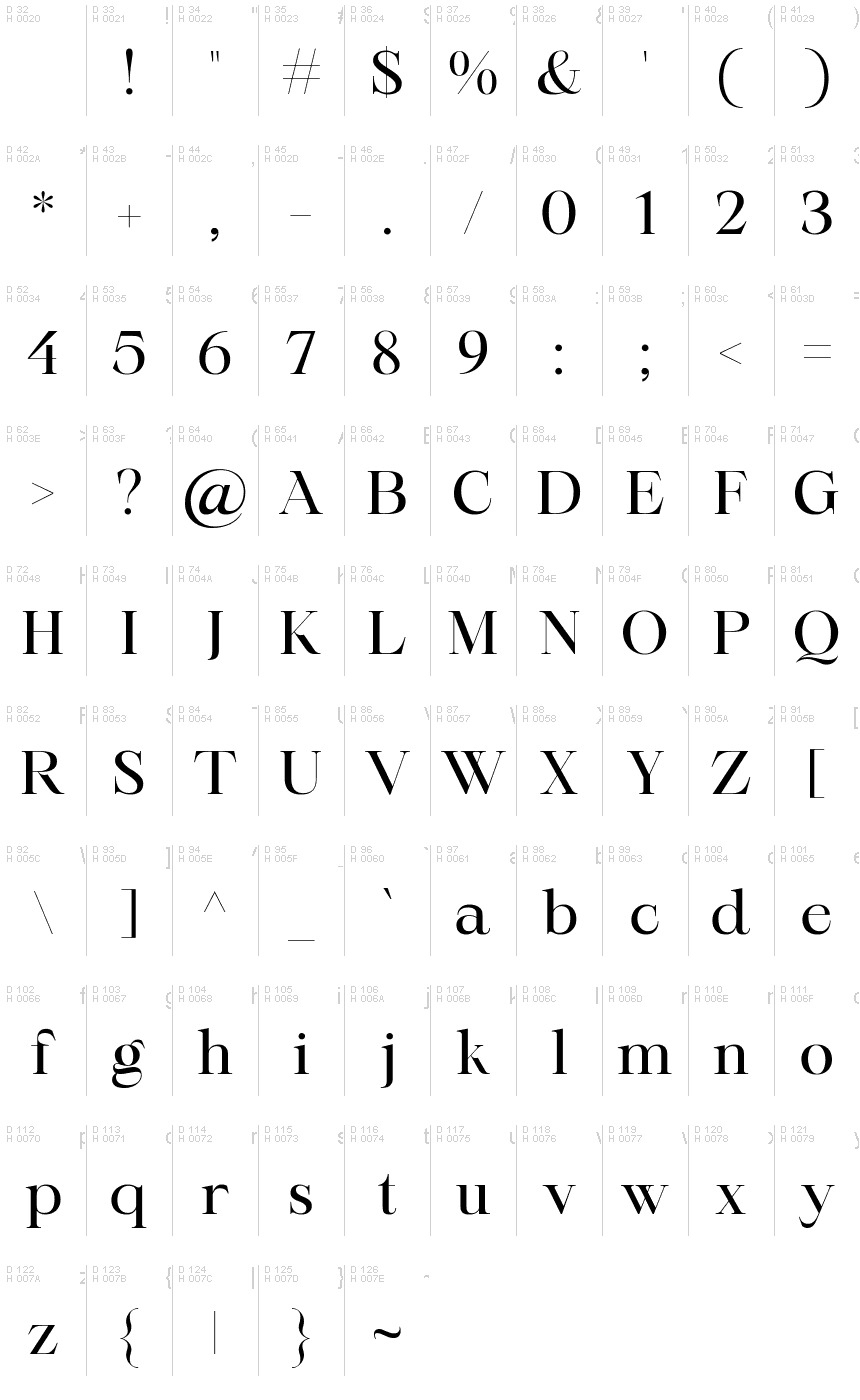
Maharlika Regular — 字体展示
Maharlika
Maharlika is an elegant typeface inspired by modernism. Maharlika is designed for fashion, brand identity, publishing books and magazines.